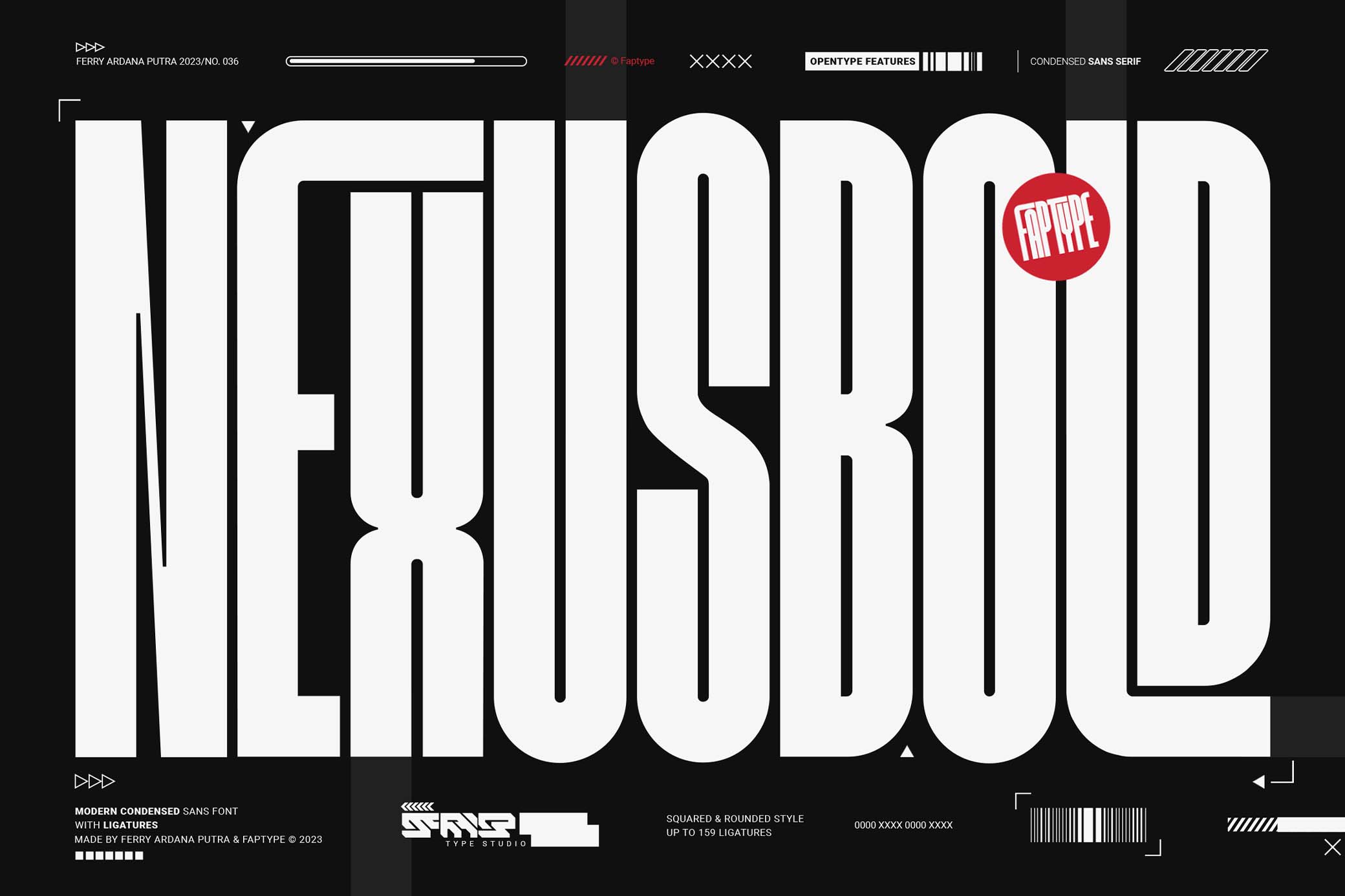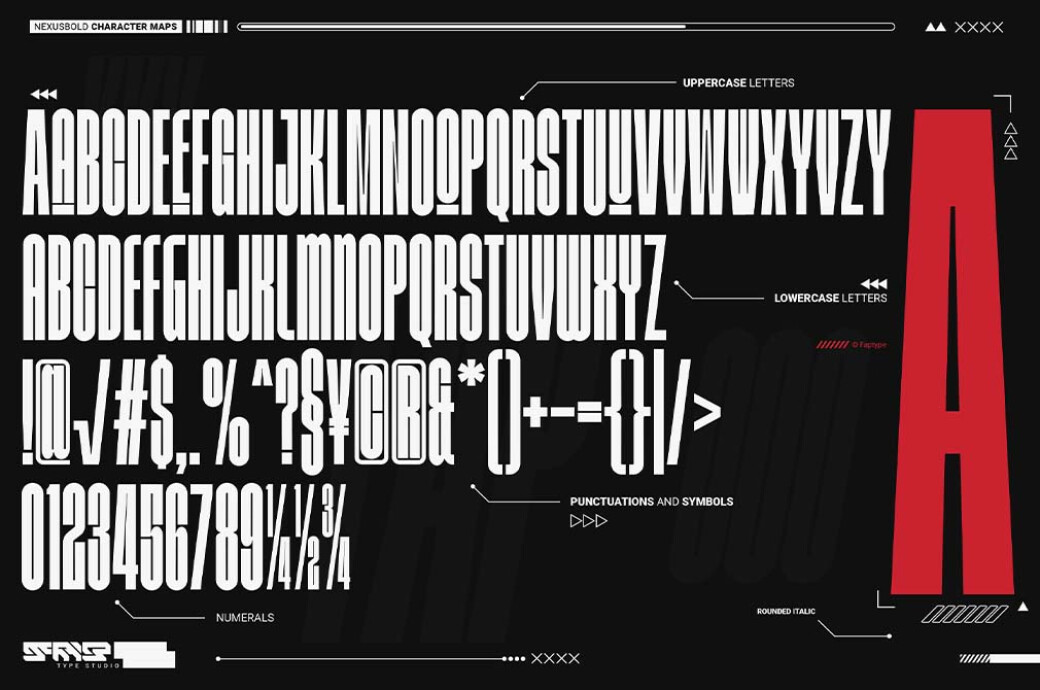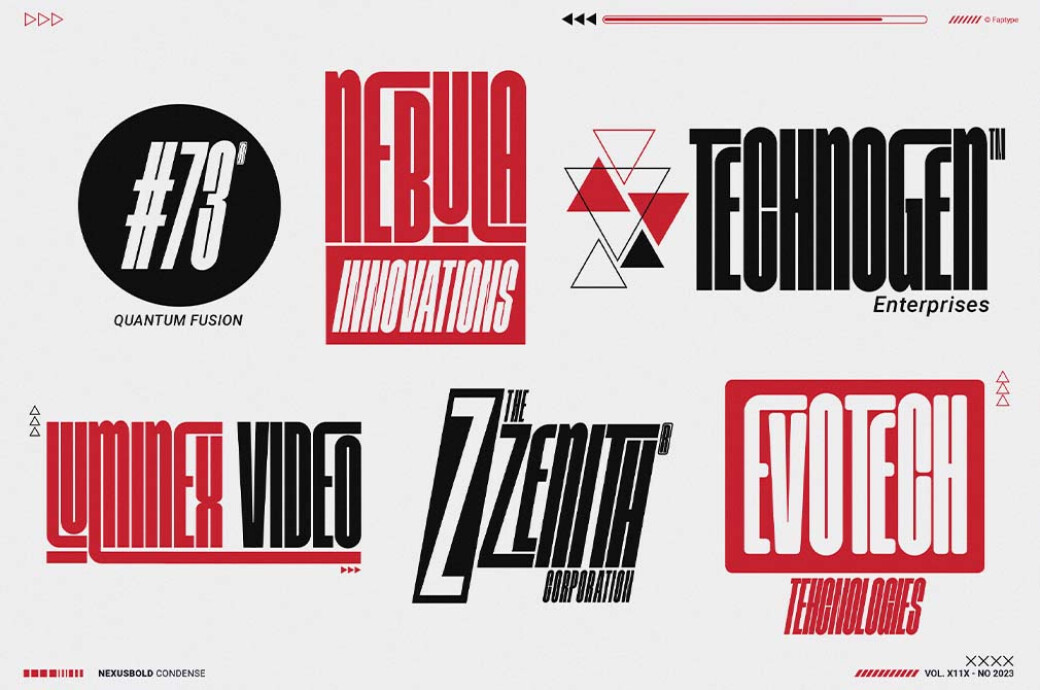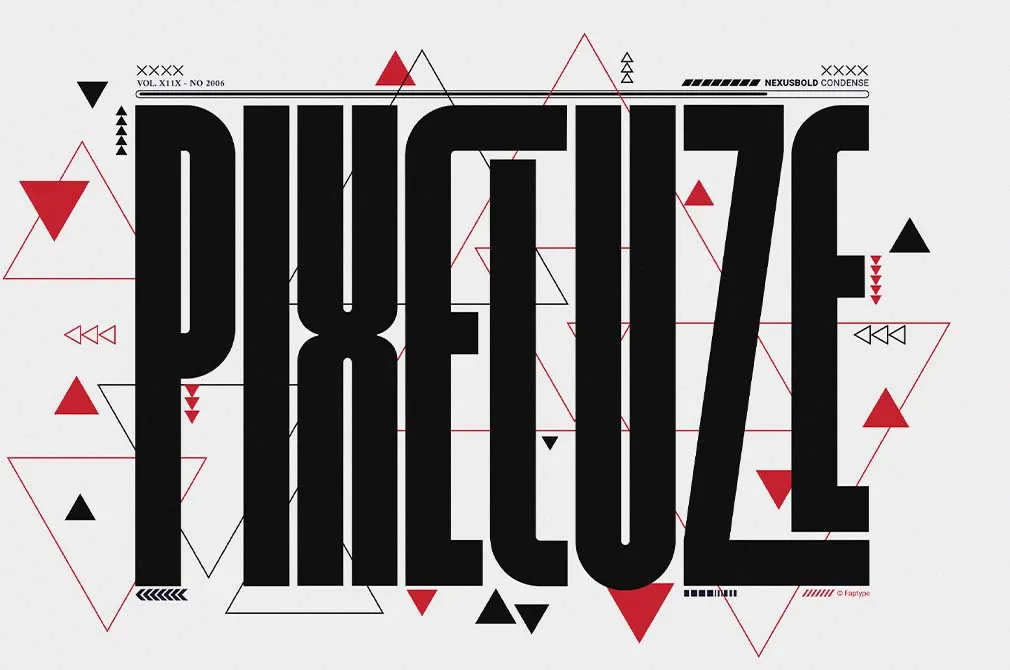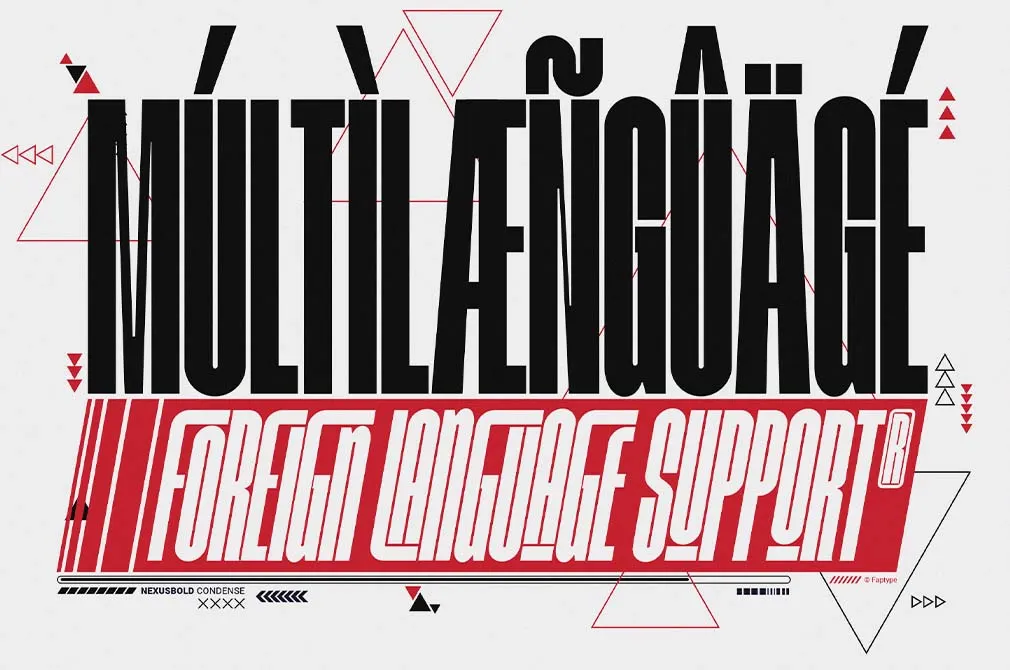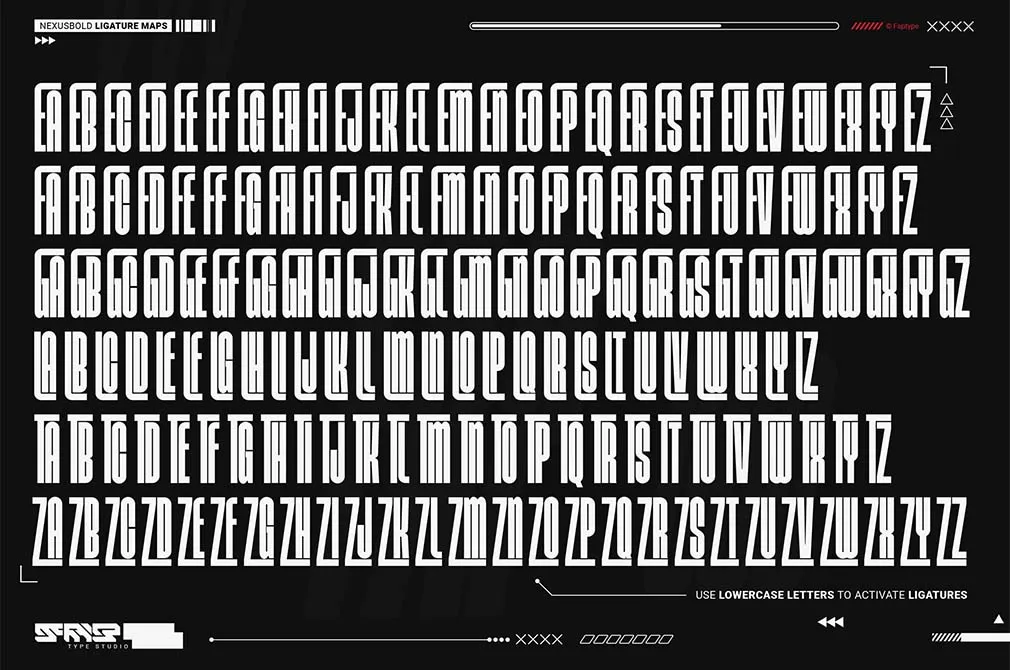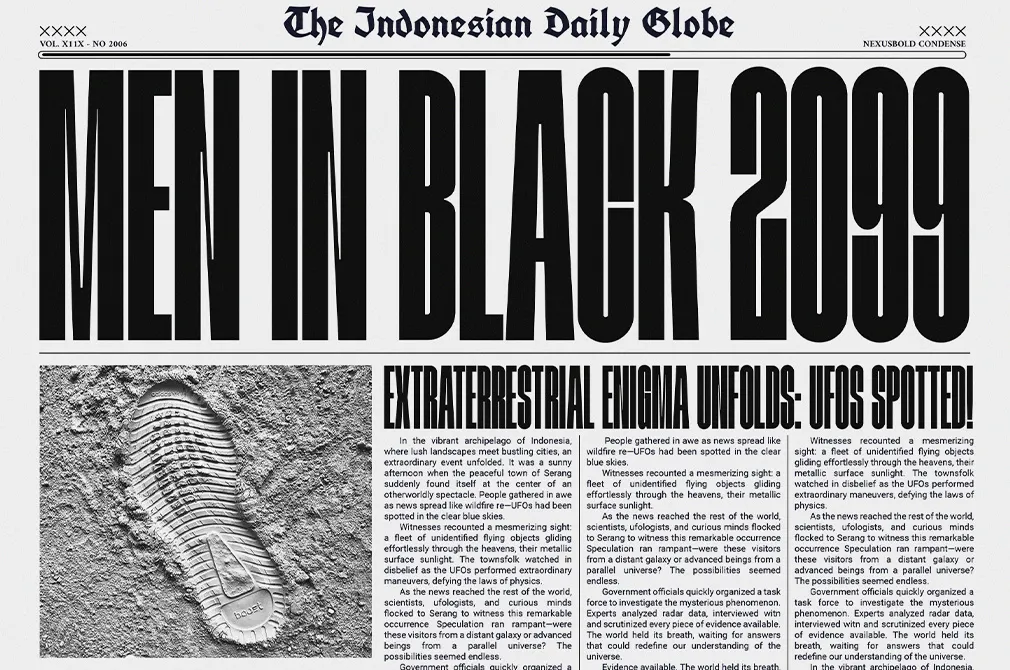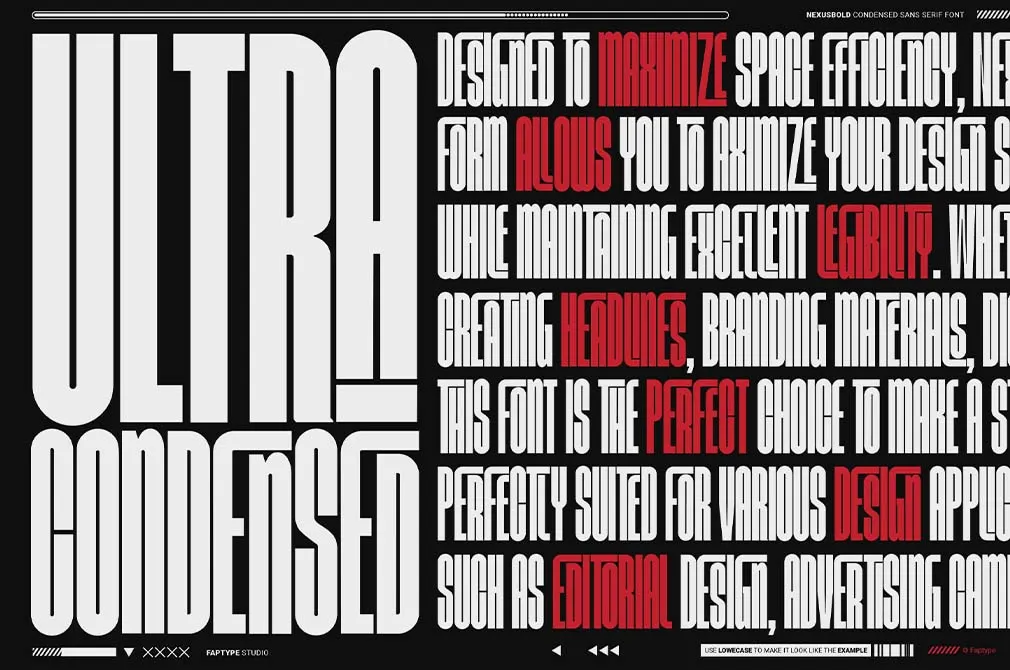
Nexusbold | Modern Condensed Sans
Regulaer
Regular Italic
Rounded
Rounded Italic
Nexusbold is a modern sans that combines elegance with functionality. This dapper design is on its way to seamlessly balance space and legibility. No doubt it's the perfect choice for creating impactful headlines, logos, and other design elements.
These neatly crafted ligatures are curated to add finess and fluidity to your typography, elevating your designs to new heights. This font is versatile and ideal for various uses, showcasing professionalism and modern style. You will have everything you need to work out your projects at its finest — an extended set of glyphs and ligatures, providing multilingual support.